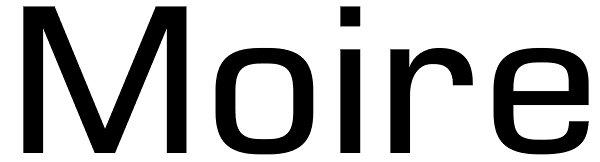
Moire
Moire is a block-style sans serif font designed by Jim Ford in the spirit of typefaces popular during the 1950s. The Moire font is slightly more efficient for a more modern voice than its predecessors. Moire is practical for all modern display...
Moire